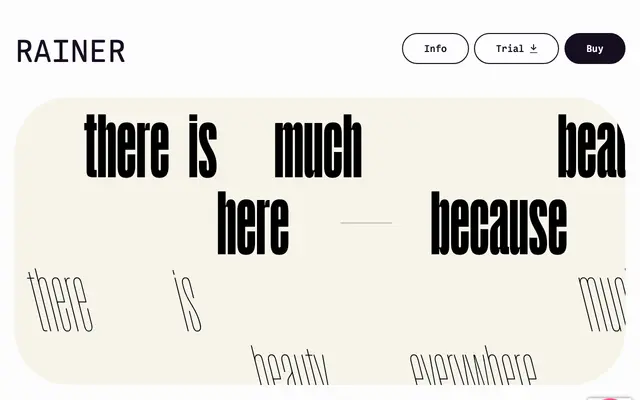
Rainer
A tightly compressed grotesque by Philipp Neumeyer with closed apertures, a high waist and a reduced character that makes it well-suited to dense headline setting.
Designed by Philipp Neumeyer and released between 2018 and 2022, Rainer runs across six weights from Hairline to Bold, each with an upright and slanted style. Its compressed form, closed apertures and short descenders lend themselves to tight headline work and large typesetting, while occasional quirks such as the high waist on certain letters give the family a quietly distinctive voice. Extended language support covers Latin, Cyrillic and Greek, with a generous set of OpenType features including Bulgarian and Serbian alternates.
A tightly compressed sans-serif with closed apertures and a large x-height, sitting within the grotesque tradition but with distinctive character details such as a high waist and reduced overall appearance.